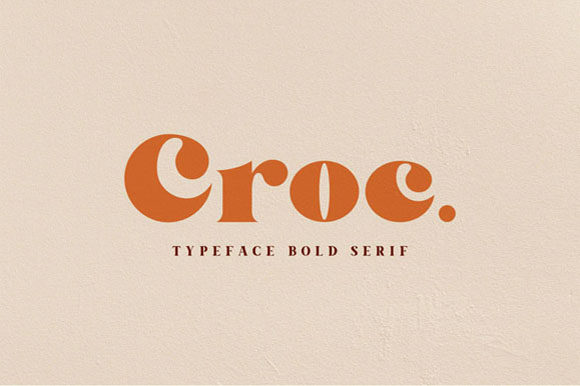
With its crisp strokes and chic serifs, Croc Font, an enchanting serif creation from Hanzel Studio, confidently transcends the boundaries of ordinary. A seamless fusion of retro and modern sensibilities, Croc is an irresistible choice for those seeking a font that commands attention.
Whether crafting striking logos, captivating editorials, or designing dynamic websites, Croc stands as an ally, amplifying your creative vision. Its sharp serifs and slender strokes emanate an aura of mid-century architectural brilliance, infusing your designs with sophistication and timeless grace.
Embrace Croc as your visual storyteller, captivating audiences with its bold presence and versatility. Unleash the font's charm across a myriad of projects, from elegant branding endeavors to dynamic digital experiences. Watch as Croc transforms your designs into captivating masterpieces, leaving an unforgettable impression on all who encounter them.
With Croc, the possibilities are limitless. Embark on a design journey like no other, where creativity knows no bounds, and your imagination takes center stage. Trust Croc to elevate your design aspirations to new heights, leaving a lasting impact on the world.